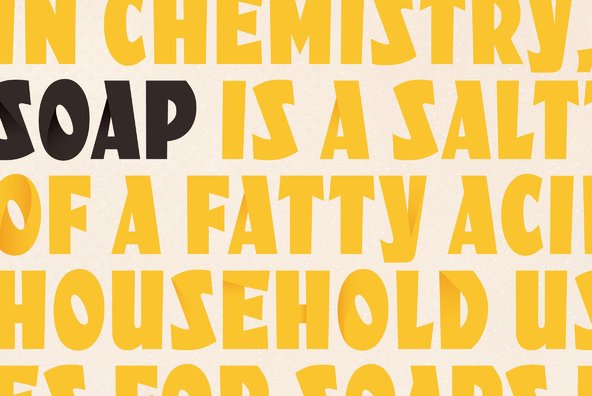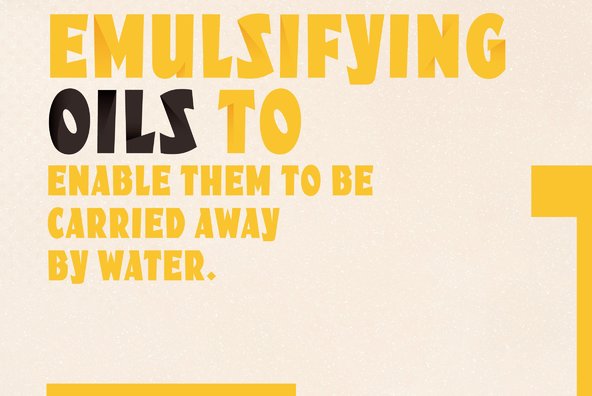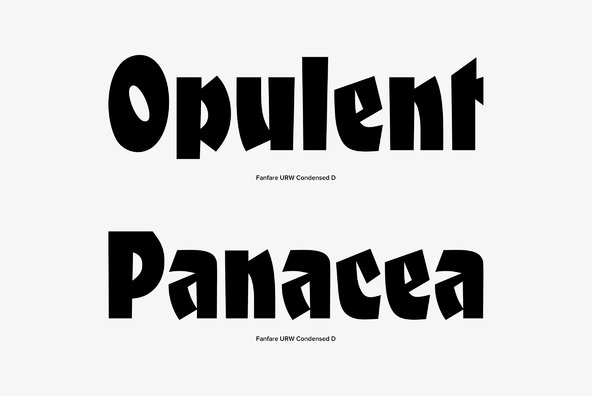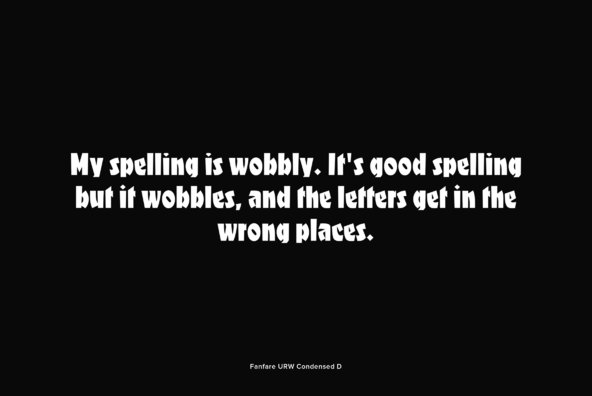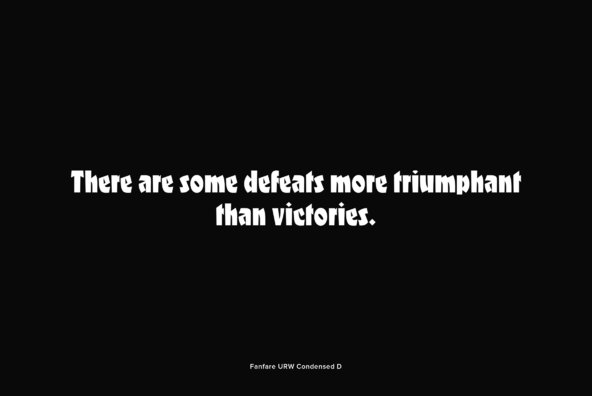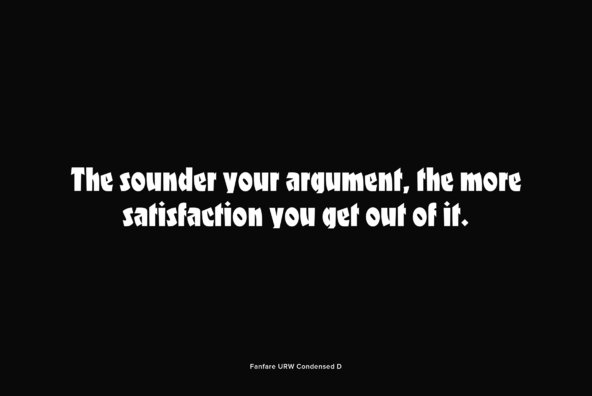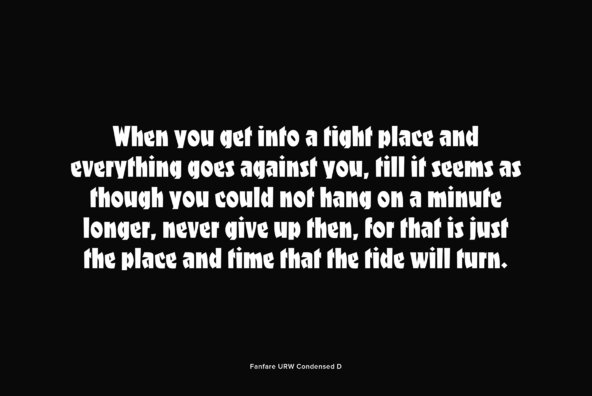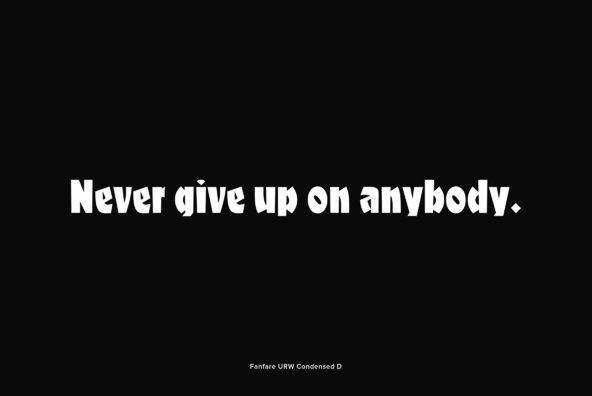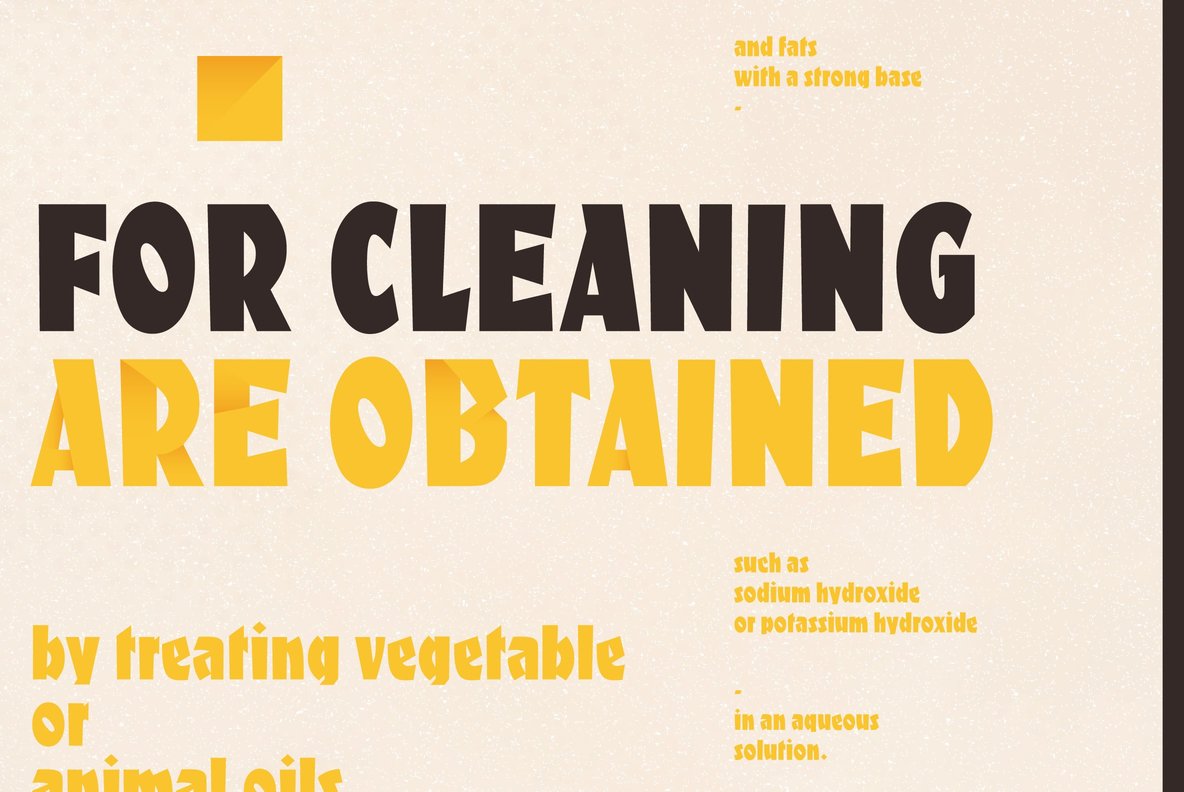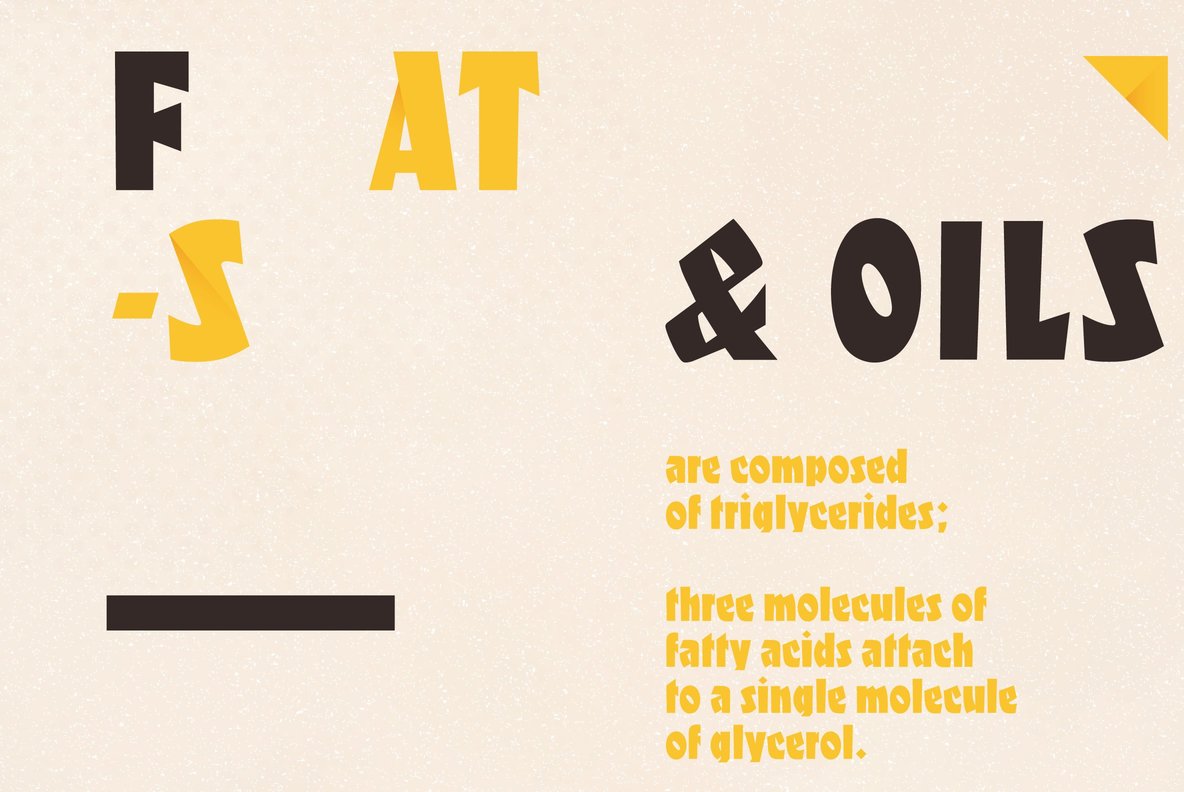
Designed by Louis Oppenheim in 1927, Fanfare is a decorative font release by URW. Contains language support for West, East, Turkish, Baltic, and Romanian.